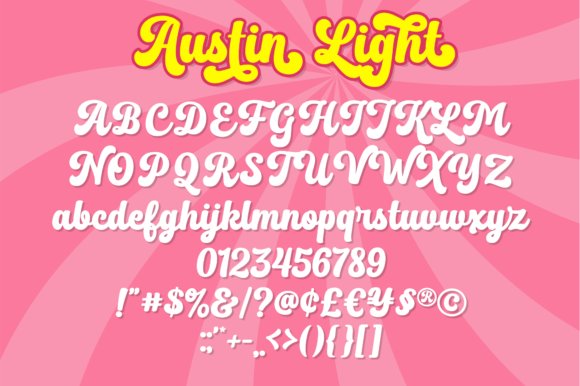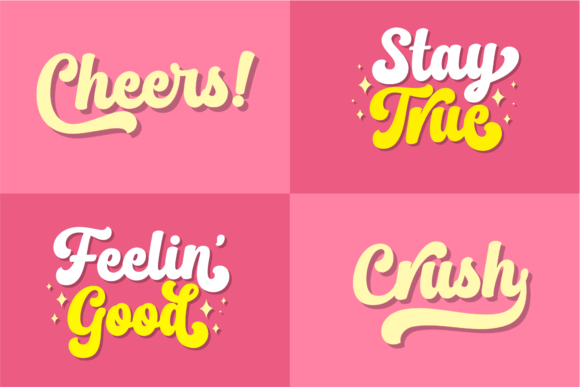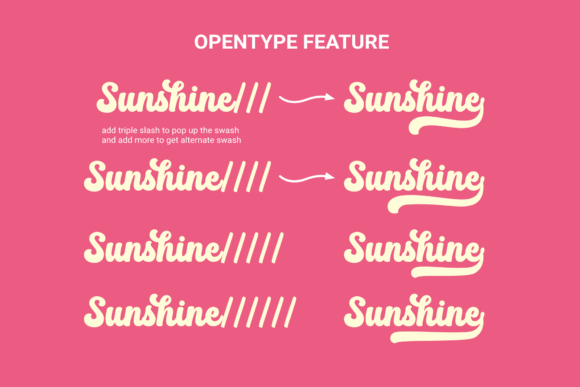
Austin Light Font
Austin Light is a bold and retro styled script font, featuring a cool flow. It has beautiful and well balanced characters and as a result, it matches a wide pool of designs.